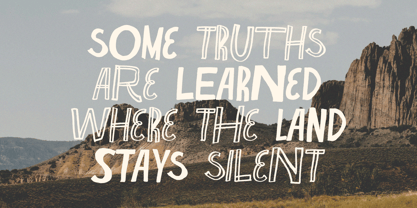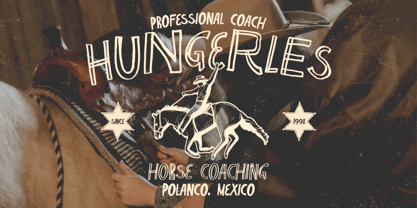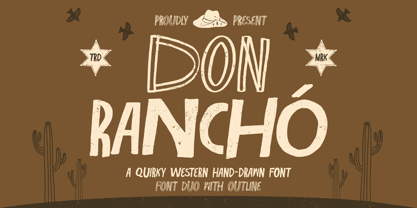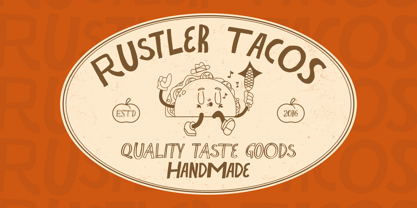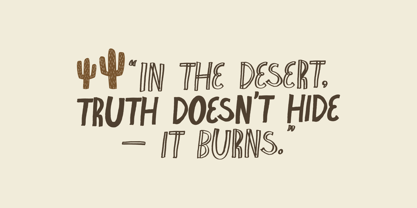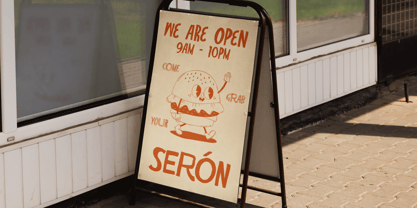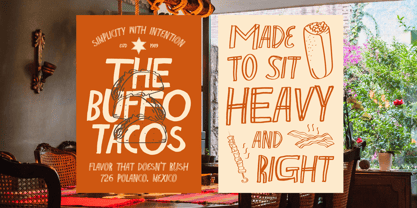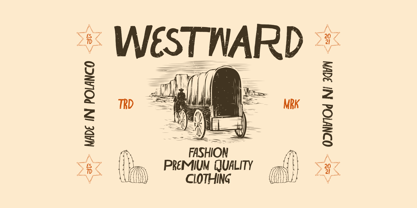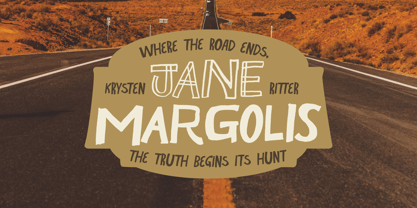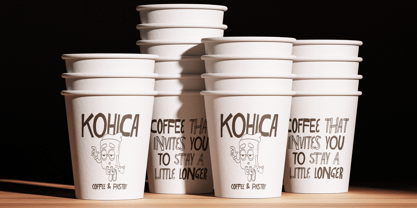
Don Rancho
Looking for a Hand-Drawn Western Font for Restaurant Logos, Packaging, and Merchandise?
Meet Don Rancho, a quirky Western hand-drawn display font family made for restaurant logos, food packaging, vintage signage, posters, apparel, and merchandise.
Inspired by vintage ranch signs, desert landscapes, cantina lettering, and handcrafted food branding, Don Rancho combines irregular shapes, rough edges, and playful proportions to create a bold rustic personality.
Built with Regular and Outline styles, this two-style Western font family gives you the freedom to create strong standalone headlines or playful layered typography with a genuine handmade feel.
Perfect for designs that need to feel rustic, bold, friendly, imperfect, and unmistakably original.
Best Used For
• Western and Southwestern branding
• Restaurant and cantina logos
• Taco brands and street-food identities
• Coffee shop and café branding
• Food and beverage packaging
• Product labels and sticker designs
• Vintage signage and storefront graphics
• Posters and event promotions
• Apparel graphics and merchandise
• Editorial headlines and display layouts
• Social media campaigns
• Desert, ranch, and outdoor branding
• Rustic logos and handcrafted wordmarks
Behind the Design
Don Rancho combines bold display impact with the warmth and imperfection of hand-drawn lettering.
Use Don Rancho Regular for strong logos, headlines, packaging, and signage with a rough Western character.
Use Don Rancho Outline to add contrast, rhythm, and a lighter handcrafted detail, or layer it with the Regular style to create more expressive custom-looking typography.
Its approachable shapes make Don Rancho playful enough for taco shops, cafés, posters, and merchandise while staying bold enough for complete restaurant identities, packaging systems, and commercial campaigns.
Font Features
• Quirky Western hand-drawn display font
• 2 coordinated styles: Regular and Outline
• Rough edges and irregular letterforms
• Playful handcrafted proportions
• Uppercase and lowercase characters
• Numerals, punctuation, and symbols
• OpenType features
• Multilingual support
Bring raw Western characters to your next restaurant logo, food package, vintage sign, poster, apparel graphic, or merchandise project with Don Rancho.